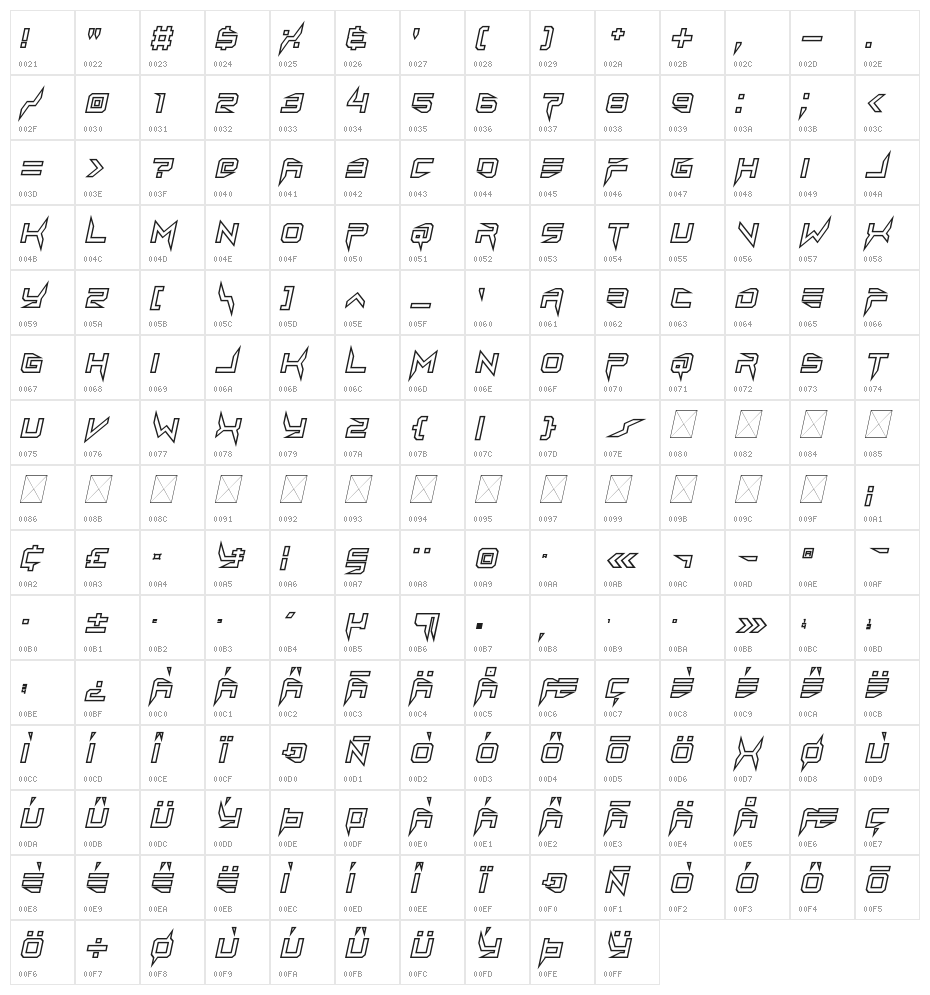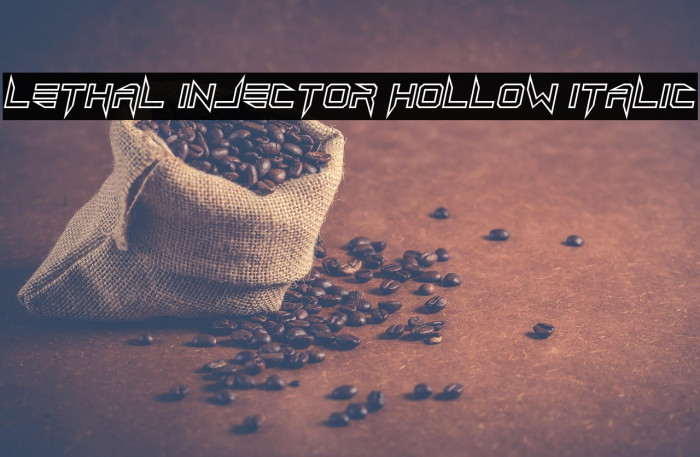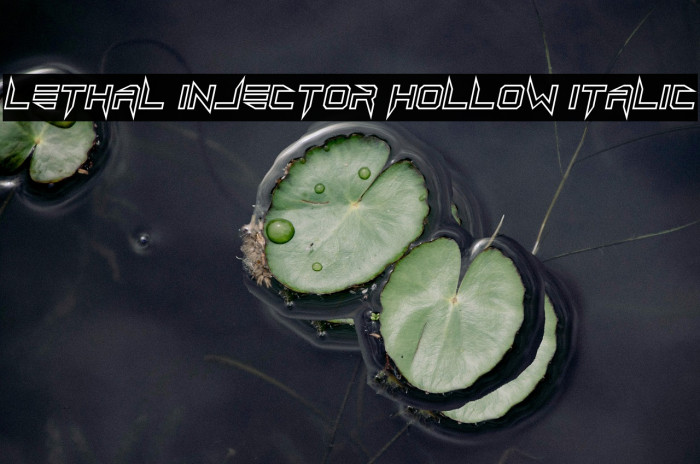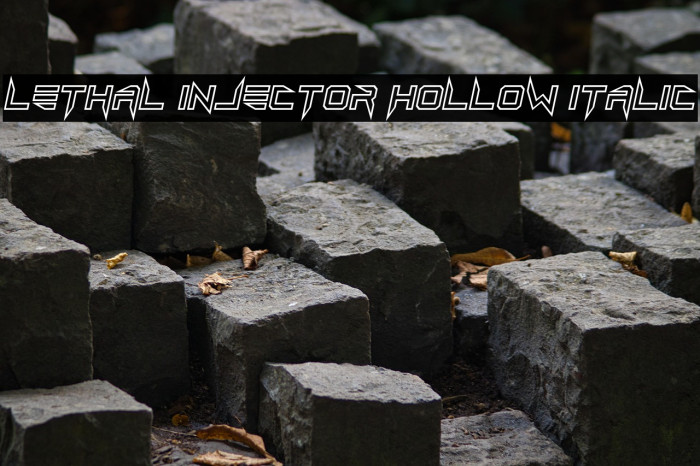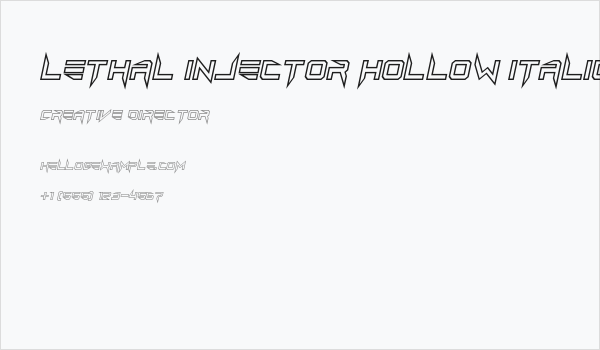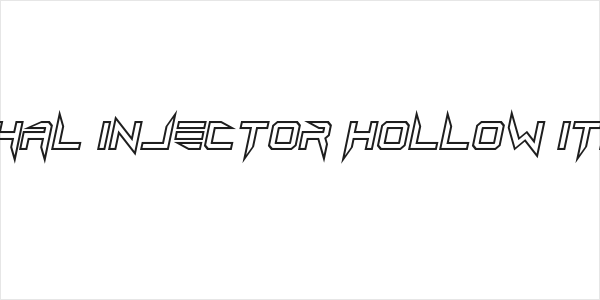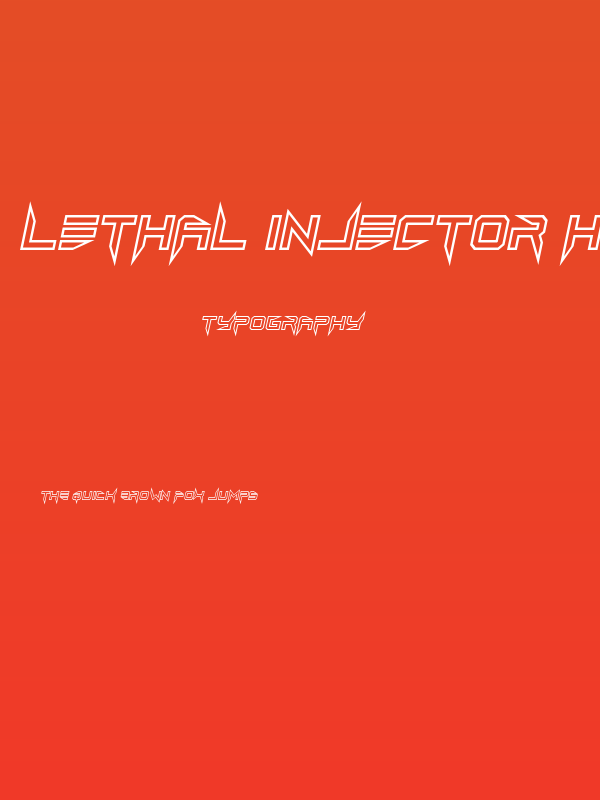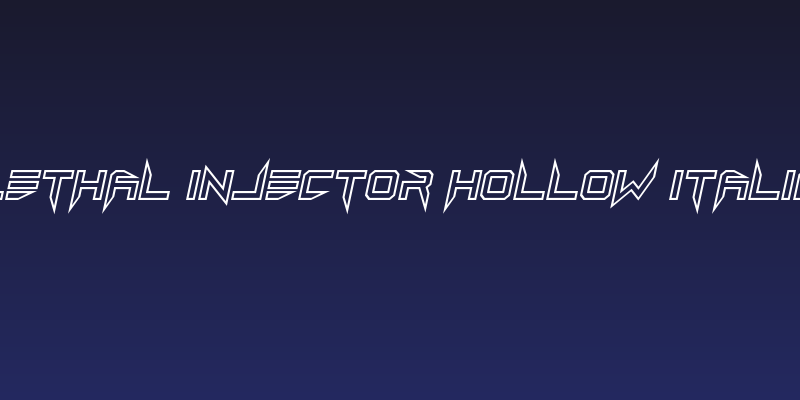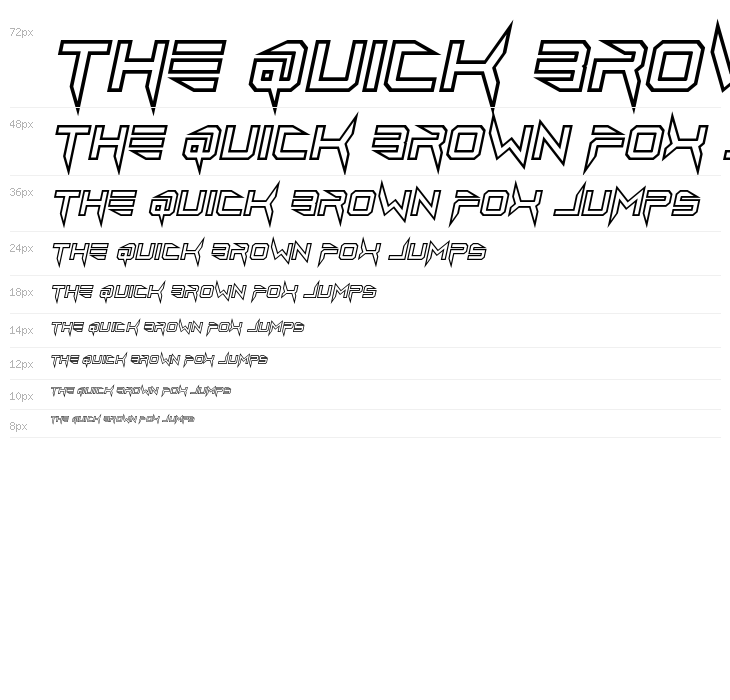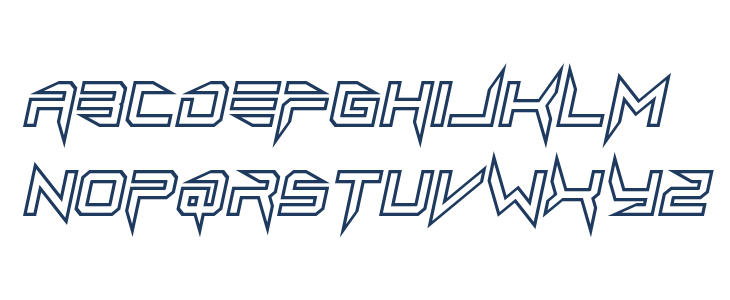
Lethal Injector Hollow Italic Font
Lethal Injector Hollow Italic Description
This font features a bold, angular design with sharp edges and a hollow interior, giving it a futuristic and aggressive appearance. The italicized slant adds a dynamic feel, enhancing its edgy and modern aesthetic. Each character is uniquely styled with pointed terminals and geometric shapes, creating a sense of movement and intensity. The uppercase and lowercase letters maintain a consistent style, while numerals and special characters are designed to match the overall theme. This font is ideal for projects that require a strong, impactful visual presence.
| Proposed Projects | Ideal for video game titles, sci-fi movie posters, branding for tech companies, or any project needing a strong, futuristic look. |